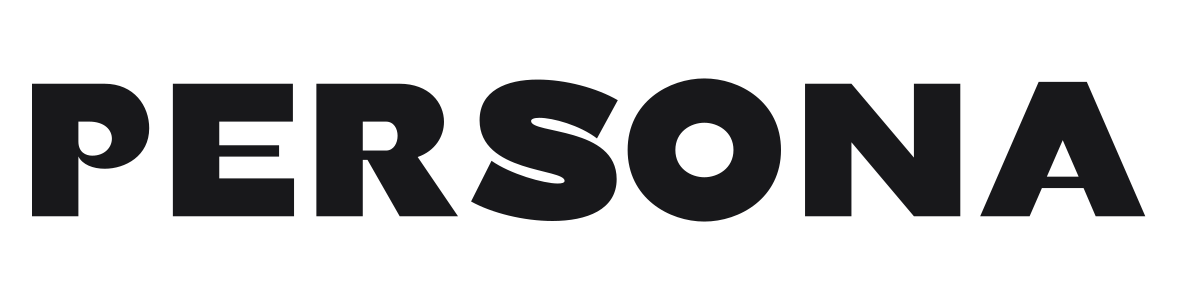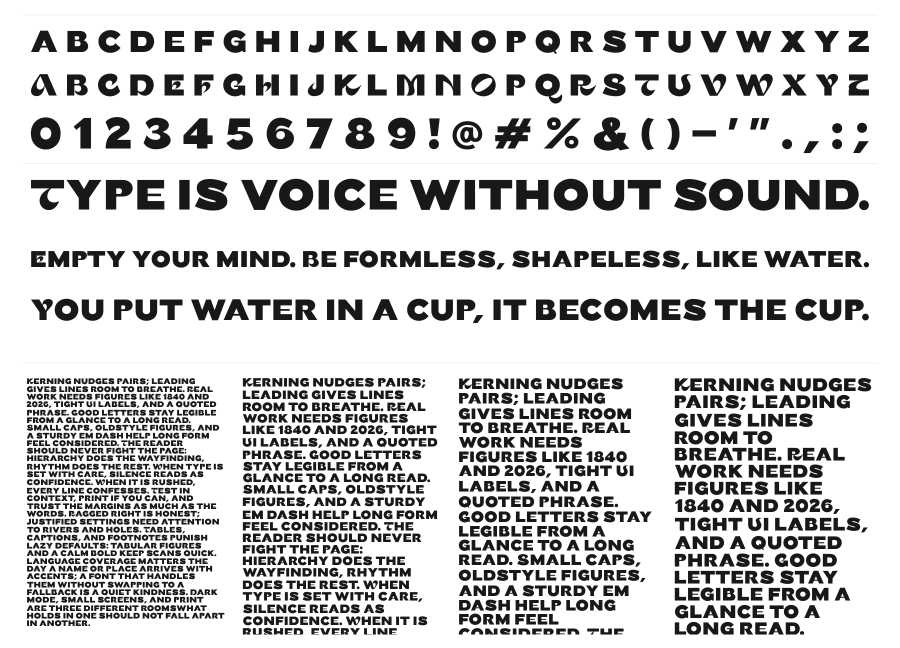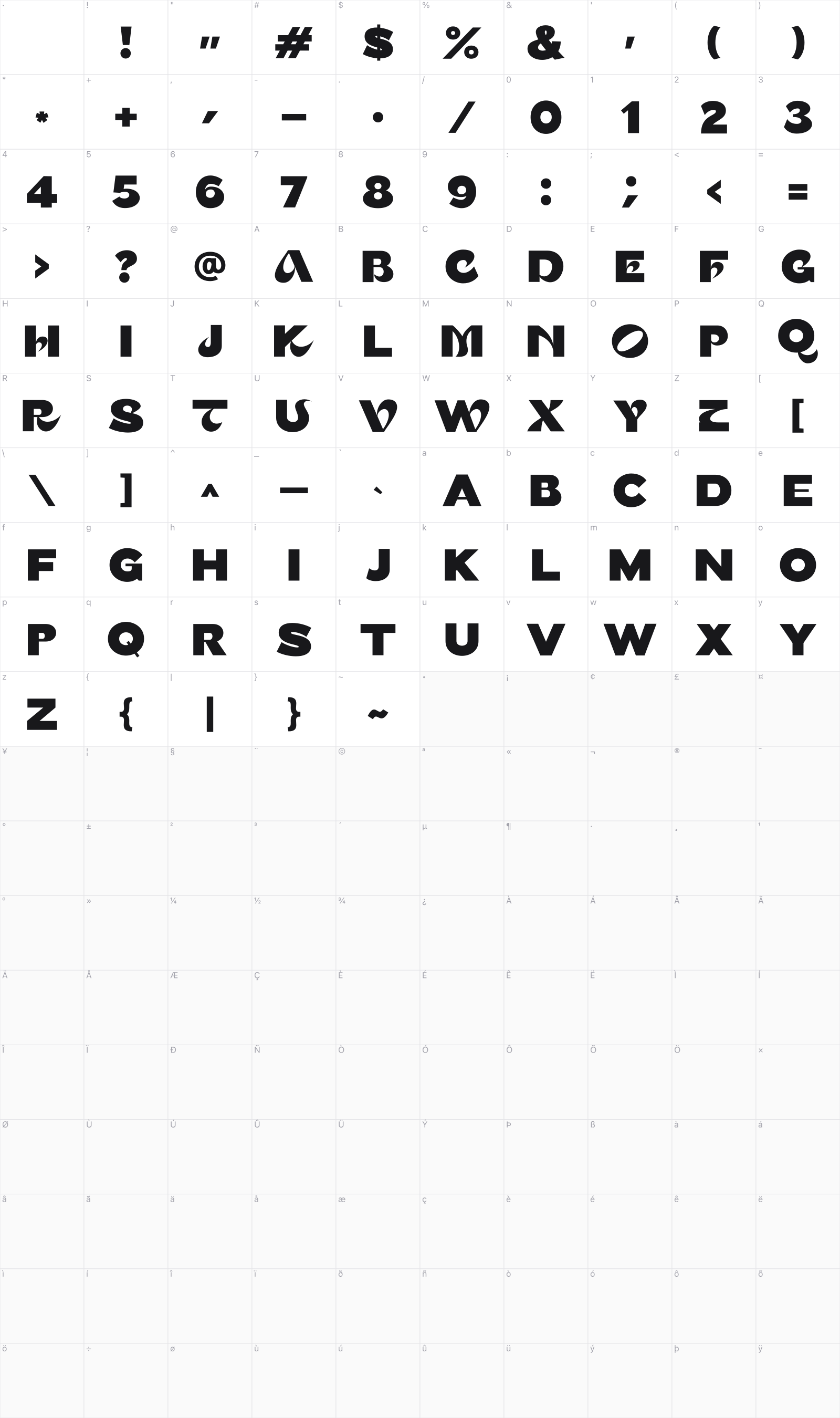
Persona
Persona is a bold, heavy geometric sans with wide proportions and a confident, blocky presence. The near-monoweight strokes and slightly rounded terminals keep it from feeling harsh, giving it versatility across branding, headlines, and identity work. It carries the kind of weight that commands attention at large sizes.